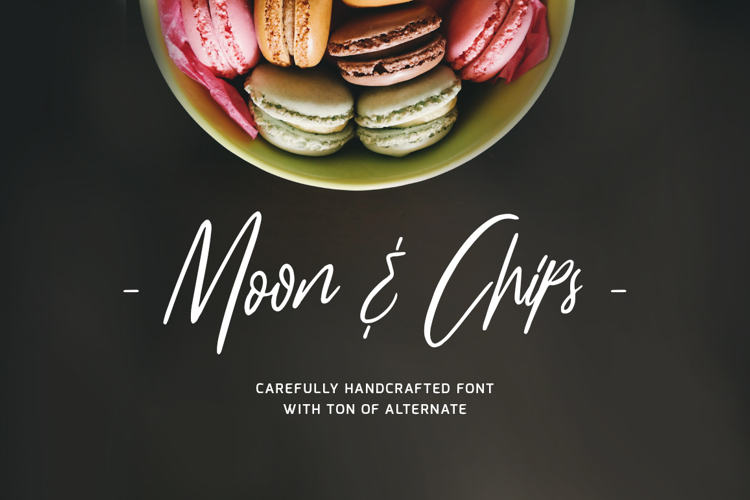
Moon And Chips Font
About Moon And Chips Font
Moon N Chips Style
Let us to introduce our new font Moon & Chips a new hand lettered typeface. Created for everyone love making something beautiful, and special who loved to make a chips and other snack. This font is very personality and suitable for your food project like restaurant menu, bakery signage, etc. With ton of alternate you can use them for every project and still look elegant.